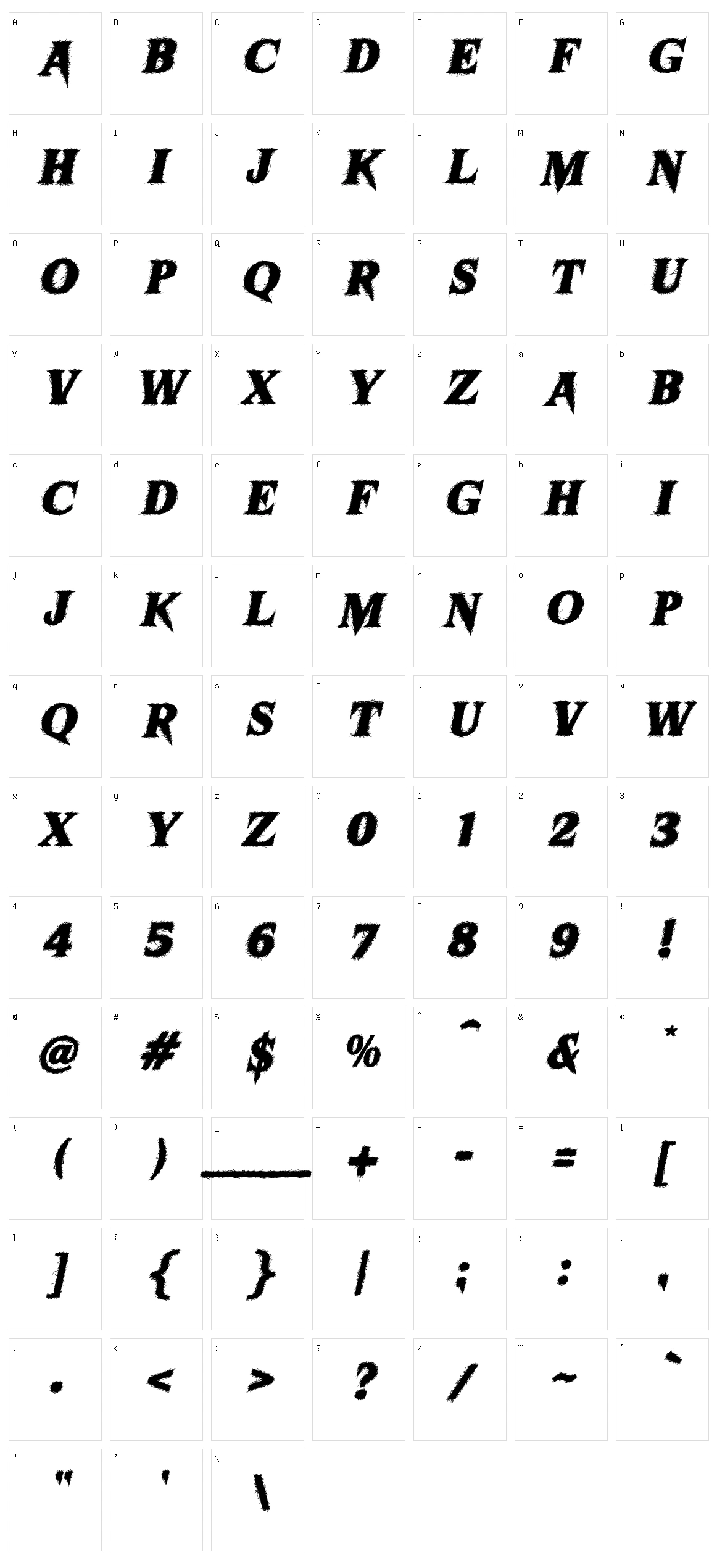
The free font Sharkbite is carefully designed by The Branded Quotes, showcasing a thoughtful balance of creativity and usability and falls under the Horror font style. When you download the ZIP file, it contains only 7061.24 KB of font files, making it lightweight and quick to download. Please review the license details below to understand permitted usage and distribution rights. If license information is not available, we recommend using this font for personal projects only or contacting the author directly for commercial usage permissions.